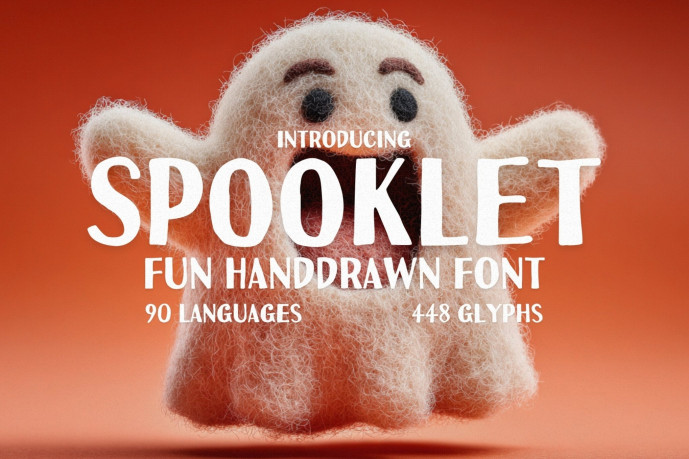
Spooklet Display Font
Spooklet Display Font, an irresistibly adorable, playful, and whimsical sans typeface that brings joy and charm to every letter it touches! With 448 glyphs and support for 90 languages, Spooklet is the perfect choice for creators who want to add a splash of fun to their kid-friendly designs.
Whether you’re designing Halloween materials for children, playful classroom printables, cute packaging, birthday invitations, or storybook titles, Spooklet delivers that easy-going, approachable vibe with a touch of spooky-sweet flair. Its bubbly letterforms, smooth curves, and cheerful personality make it an all-around favorite for projects that need to be lighthearted yet stylish.
From spooky-cute to just plain adorable, Spooklet is here to make your designs smile.